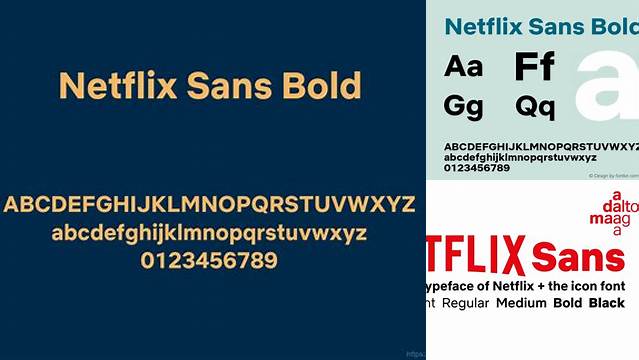
Netflix Sans Bold Font: Free Download & Guide
Hey guys! Ever wondered about that sleek, modern font that Netflix uses? It's called Netflix Sans, and it's become super recognizable. In this guide, we'll dive into everything you need to know about the Netflix Sans Bold font, including how to potentially snag a free download and use it for your own projects. Let's get started!
Understanding the Netflix Sans Font
So, what's the deal with Netflix Sans? Well, it's a custom typeface designed specifically for Netflix. It's clean, modern, and gives off that cool, sophisticated vibe that Netflix is known for. You'll see it everywhere, from the Netflix logo to the subtitles on your favorite shows and movies. The design is all about readability and consistency across all platforms, ensuring a seamless viewing experience for everyone. The design is credited to Dalton Maag, a well-known font foundry. The original was a custom project and is not commercially available. The typeface is designed with a rounded 't', a subtle, distinctive characteristic, and various other adjustments for optimized on-screen reading. Because it is a proprietary font, it can not be directly downloaded, and it is exclusively used for the Netflix brand. This means that finding a direct, official download for Netflix Sans Bold is pretty much impossible. The primary purpose of the font is to maintain a cohesive and recognizable brand identity across all of Netflix's content. The strategic use of this font has undoubtedly contributed to Netflix's strong brand recognition and its image as a modern media provider. It's all about keeping that brand image consistent and easily recognizable, which is critical in today's crowded media landscape. The font is optimized for digital displays, so it has been designed to look good on screens of all sizes, from your phone to your giant TV. The attention to detail in crafting this font showcases Netflix's commitment to its brand image, and to making sure everything looks polished and professional.
Finding Similar Fonts: Your Alternatives
Since you can't officially download Netflix Sans Bold for free, let's explore some awesome alternatives that can give you a similar look and feel. There are tons of fonts out there that share the same modern and clean aesthetic. One popular option is Montserrat, a geometric sans-serif font that's widely available and looks great on screen. Another excellent choice is Lato, which has a friendly yet professional vibe. Open Sans is another solid option, known for its excellent readability and versatility. Other alternatives include Roboto, and Poppins. To find the perfect font, focus on the weight, style and the overall design of the font. Consider the characteristics of the Netflix Sans Bold font. Look for fonts that have similar weights, spacing, and a clean, modern aesthetic. Also, check the licensing information to ensure that you can use the font for your specific project. Most of these fonts are available for free download on sites like Google Fonts, making them a great choice for personal and commercial use. Experiment with different fonts, and see which ones best fit your needs. Each font has its own personality, and the right choice can really make your designs pop. The availability of these free download options makes it super easy to create designs that are similar to Netflix Sans Bold, without any copyright concerns. They provide you with a lot of options to explore and discover new fonts, helping you create designs that are both visually appealing and professional. Remember, finding the right font is all about experimenting and finding the perfect match for your project. These options are a great starting point for your design journey.
Using Similar Fonts in Your Designs
Conclusion: Embracing the Style of Netflix Sans
In conclusion, while a free download of the official Netflix Sans Bold font is not available, you can still create amazing designs that capture its essence. By exploring similar fonts, being creative with your design and following licensing guidelines, you can achieve that sleek, modern look. Use the suggestions provided to find fonts that echo the style and feel of Netflix Sans Bold. Always verify the legal rights of the font you're using, and make sure the font complements your message and purpose. Remember, the key to great design is creativity and attention to detail. Have fun experimenting with different fonts and finding the perfect match for your project. Remember to always respect the legal aspects of font licensing and make informed choices. Embrace the style of Netflix Sans, and let your designs shine!